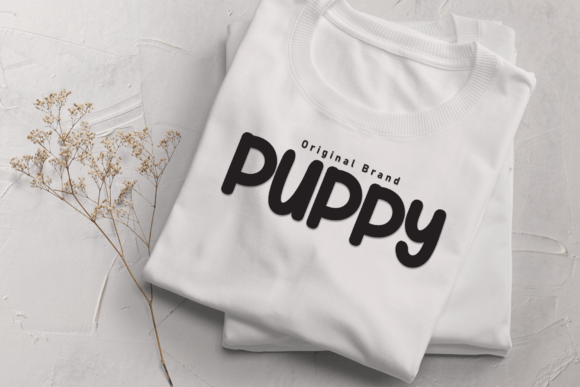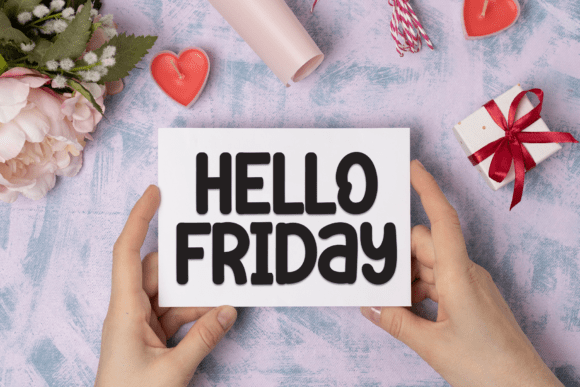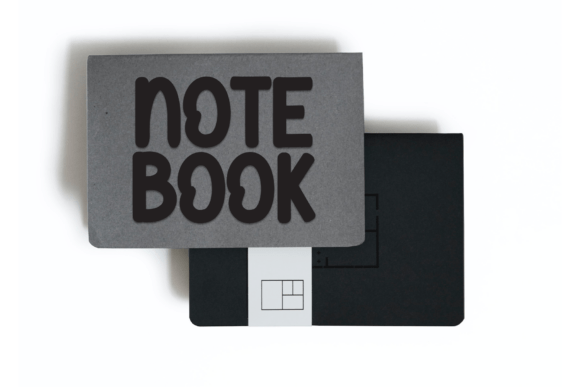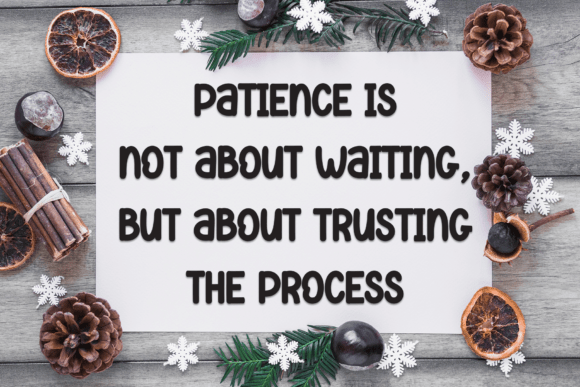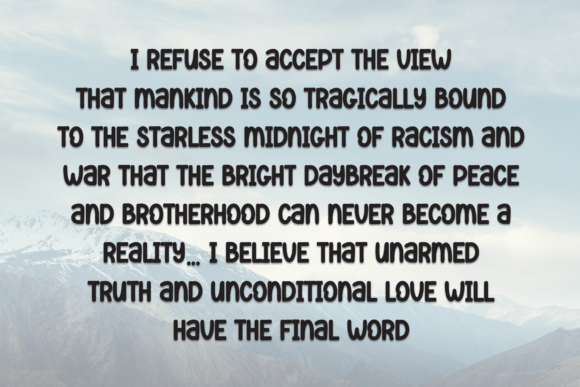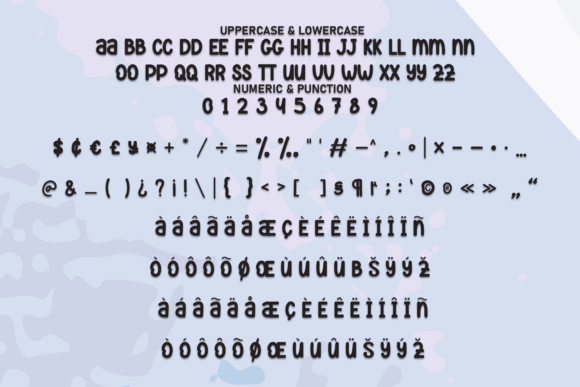
Introducing Chubby Font: The Perfect Blend of Simplicity, Warmth, and Whimsy
Are you tired of using the same old fonts in your designs? Look no further! Our specially crafted display font, Chubby Font, is here to add a touch of magic to your creations. With its enchanting aura of simplicity and warmth, this font is sure to captivate your audience and leave a lasting impression.
The Enchanting Charm of Chubby Font
Chubby Font is more than just a font – it’s an experience. Its unique blend of simplicity and whimsy makes it perfect for designers and crafters looking to add a dash of personality to their work. Whether you’re creating wedding invitations, greeting cards, or any other design that requires a touch of elegance and fun, Chubby Font is the perfect choice.
Infusing Exuberance and Fun into Your Designs
One of the standout features of Chubby Font is its ability to effortlessly infuse exuberance and fun into every design it adorns. Its playful and carefree nature makes it perfect for designs that require a lighthearted touch. Imagine creating wedding invitations that not only convey the joy of the occasion but also set the tone for a fun and celebratory atmosphere. With Chubby Font, you can do just that.
Sophistication and Elegance
While Chubby Font is undoubtedly playful and fun, it’s also surprisingly sophisticated. Its innate elegance makes it a superb choice for crafting wedding invitations, greeting cards, and other designs that require a touch of refinement. Whether you’re a designer or a crafter, you’ll love how Chubby Font can elevate your work and add a level of sophistication that’s hard to achieve with other fonts.
The Perfect Choice for Designers and Crafters
So, what makes Chubby Font the perfect choice for designers and crafters? For starters, its versatility is unmatched. Whether you’re creating digital designs or handmade crafts, Chubby Font can be used in a variety of contexts. Its unique blend of simplicity, warmth, and whimsy makes it perfect for:
- Wedding invitations and announcements
- Blog headers and titles
- Handmade crafts and DIY projects
Why Choose Chubby Font?
With so many fonts to choose from, why should you choose Chubby Font? Here are just a few reasons:
- Unique and eye-catching: Chubby Font is unlike any other font on the market. Its unique blend of simplicity and whimsy makes it sure to grab attention and leave a lasting impression.
- Versatile: Chubby Font can be used in a variety of contexts, from digital designs to handmade crafts.
- Elegant and sophisticated: Despite its playful nature, Chubby Font is surprisingly elegant and sophisticated, making it perfect for designs that require a touch of refinement.